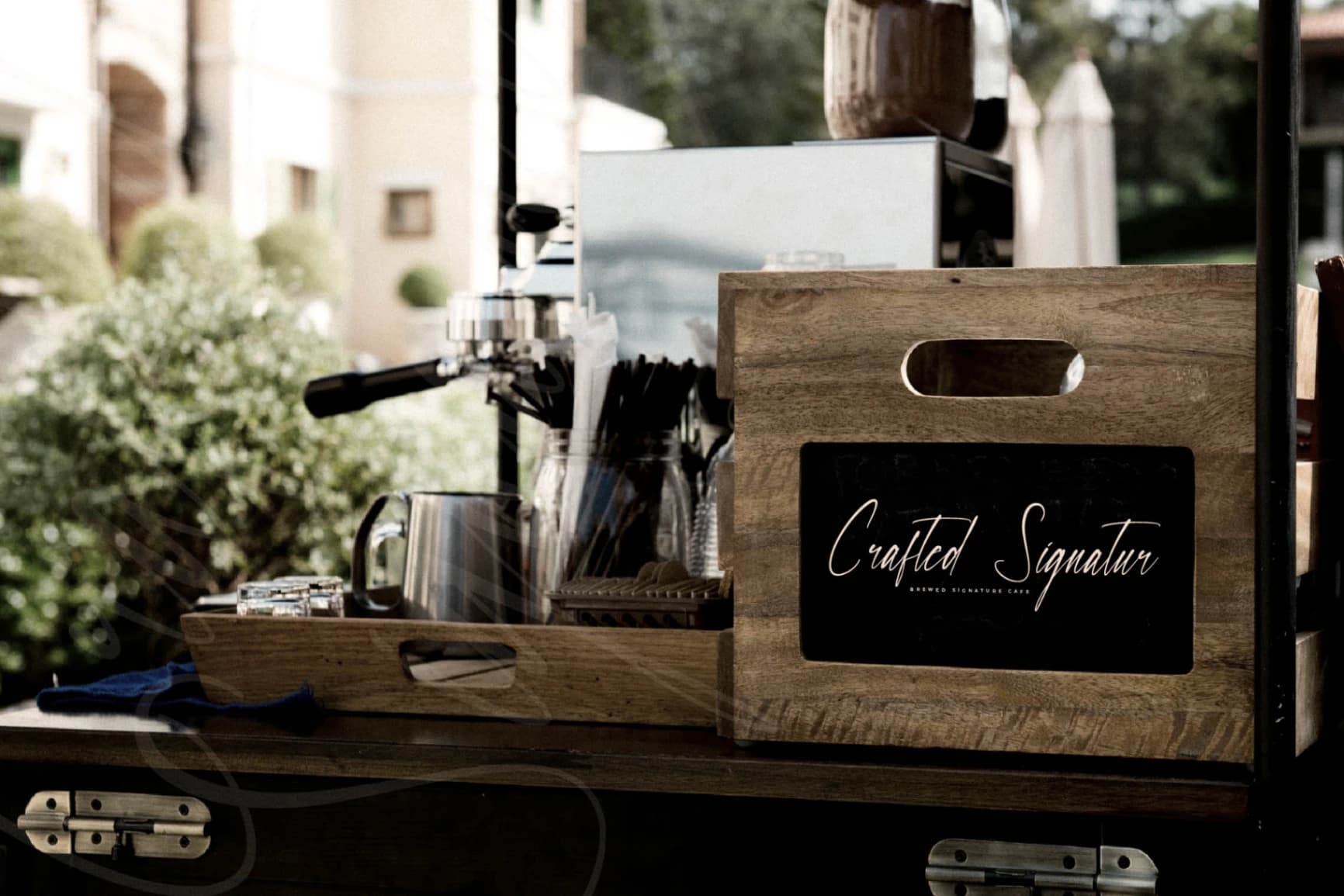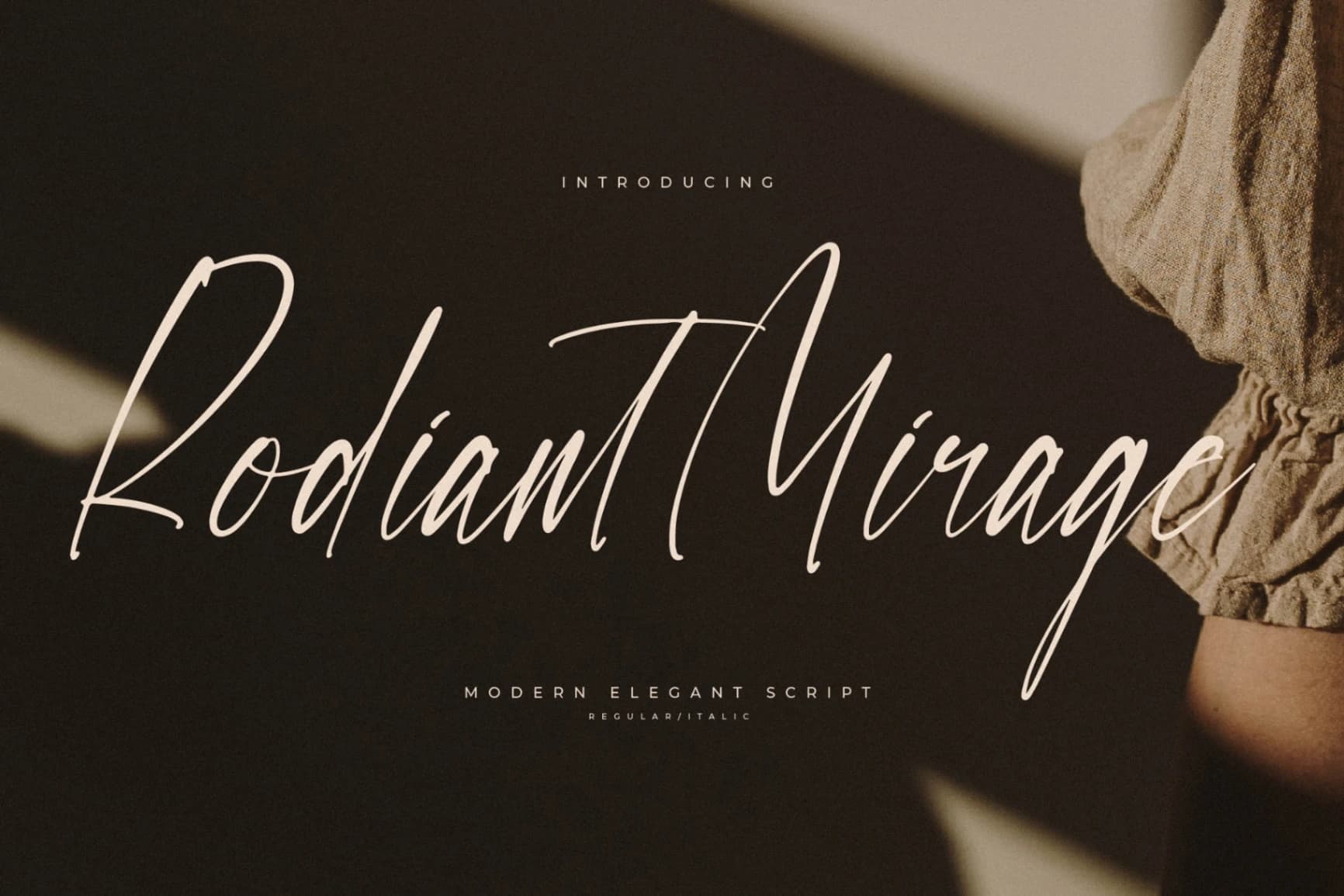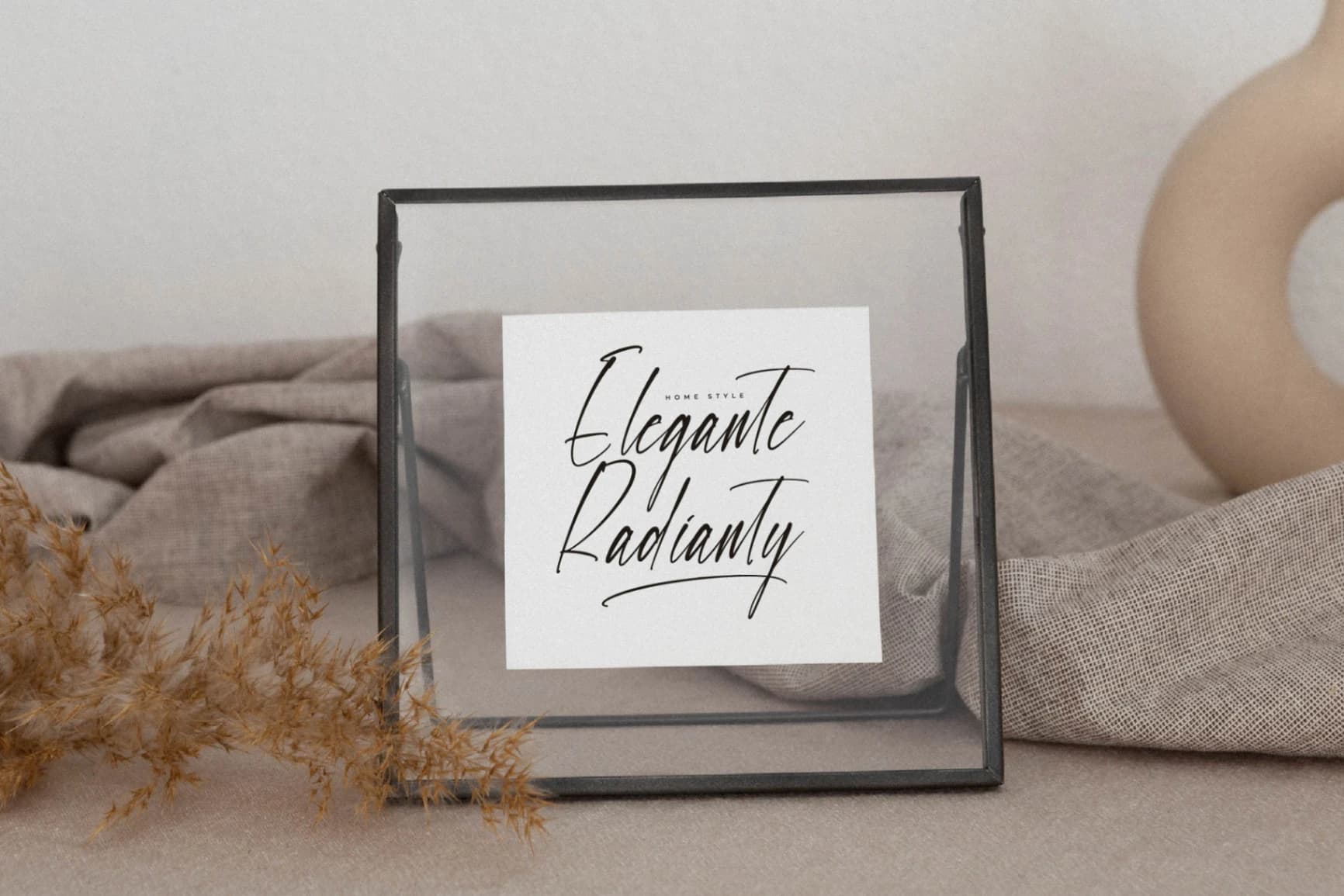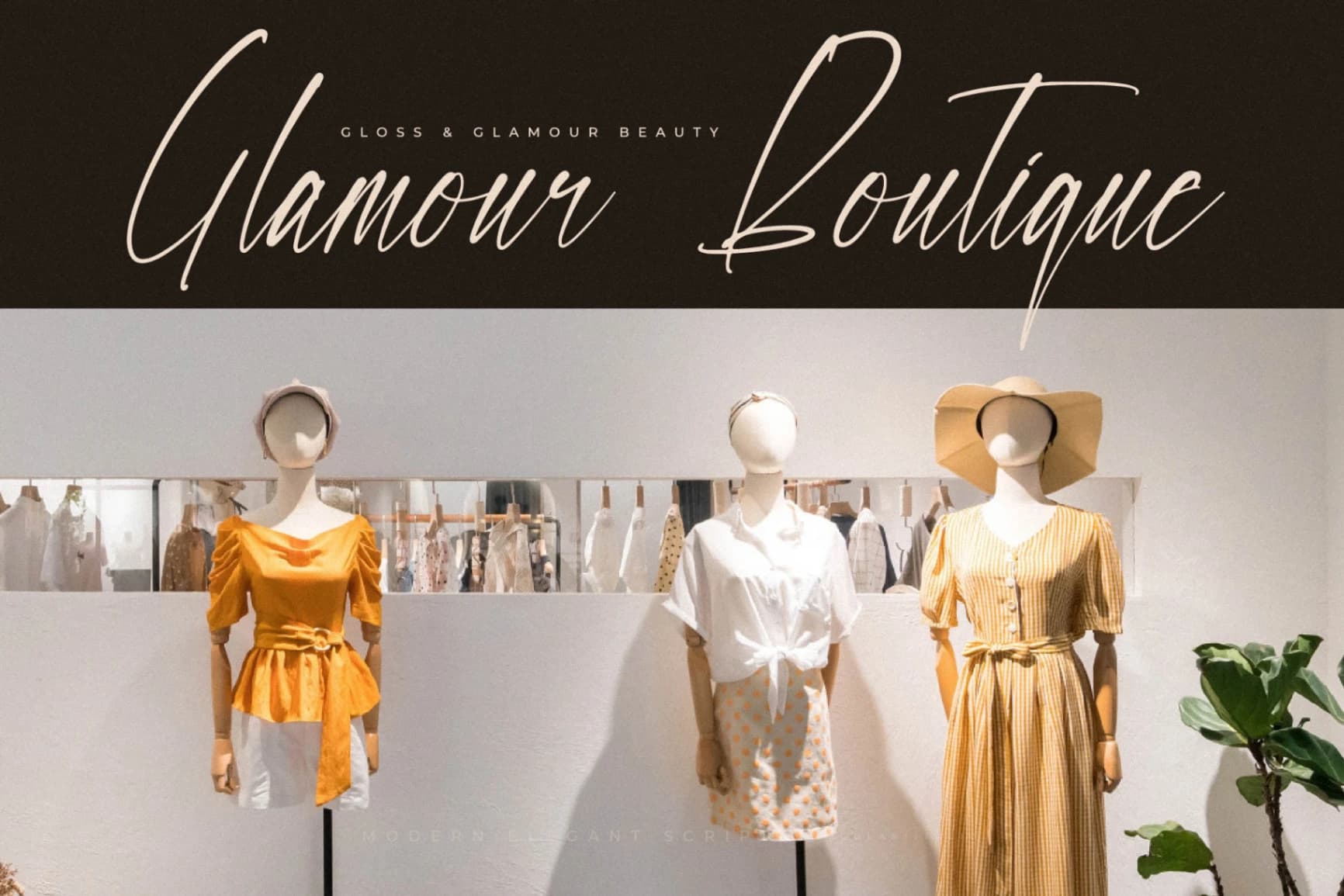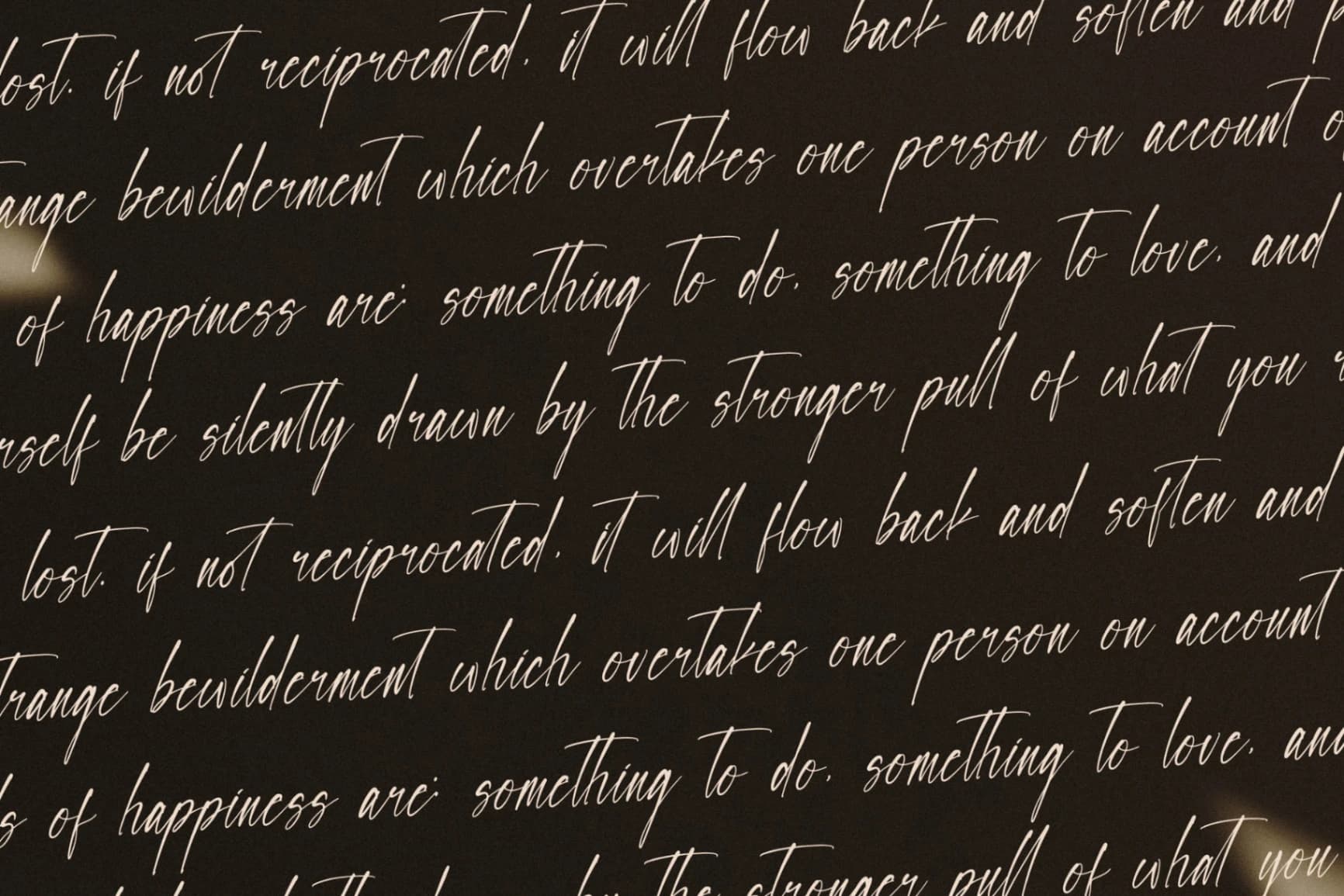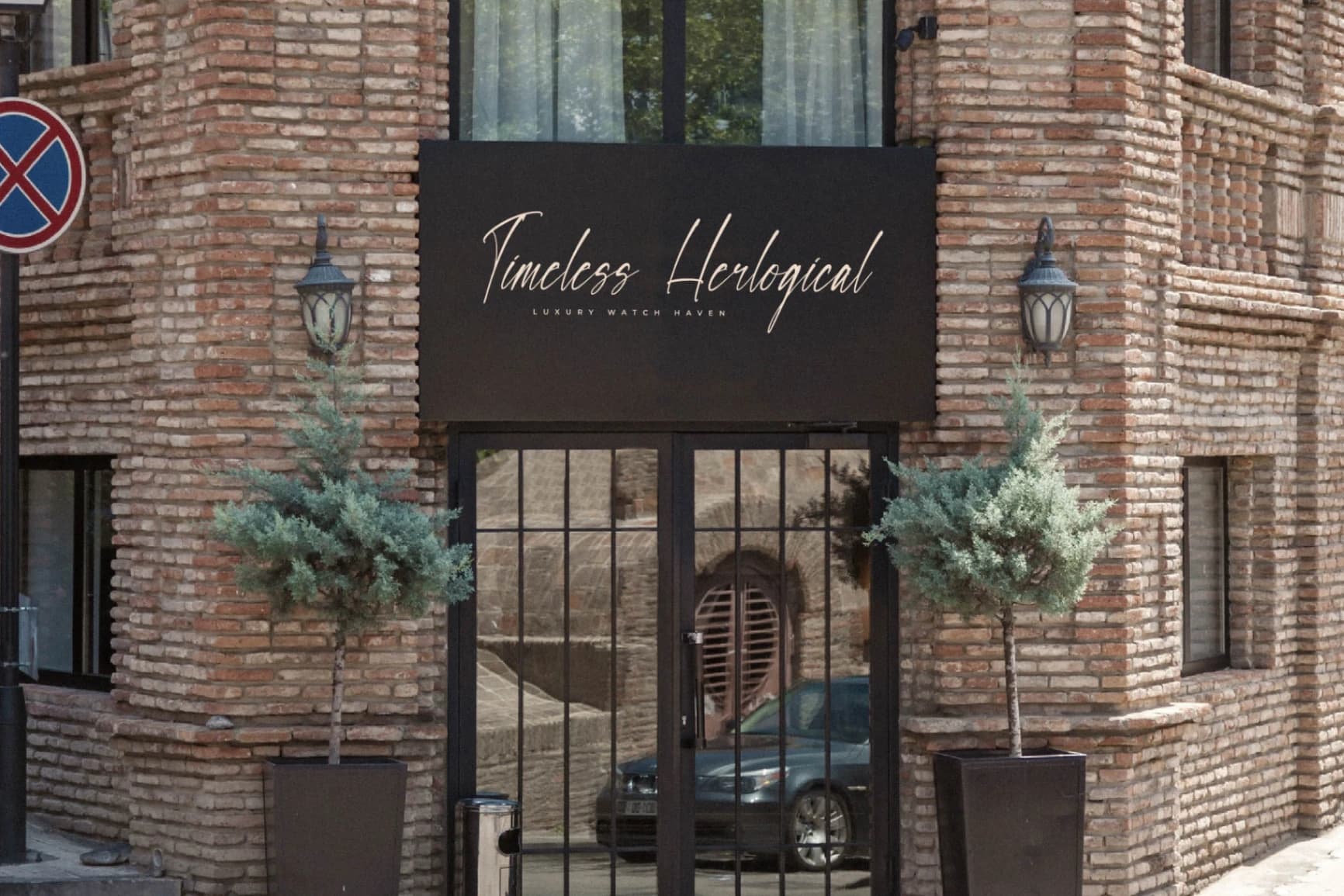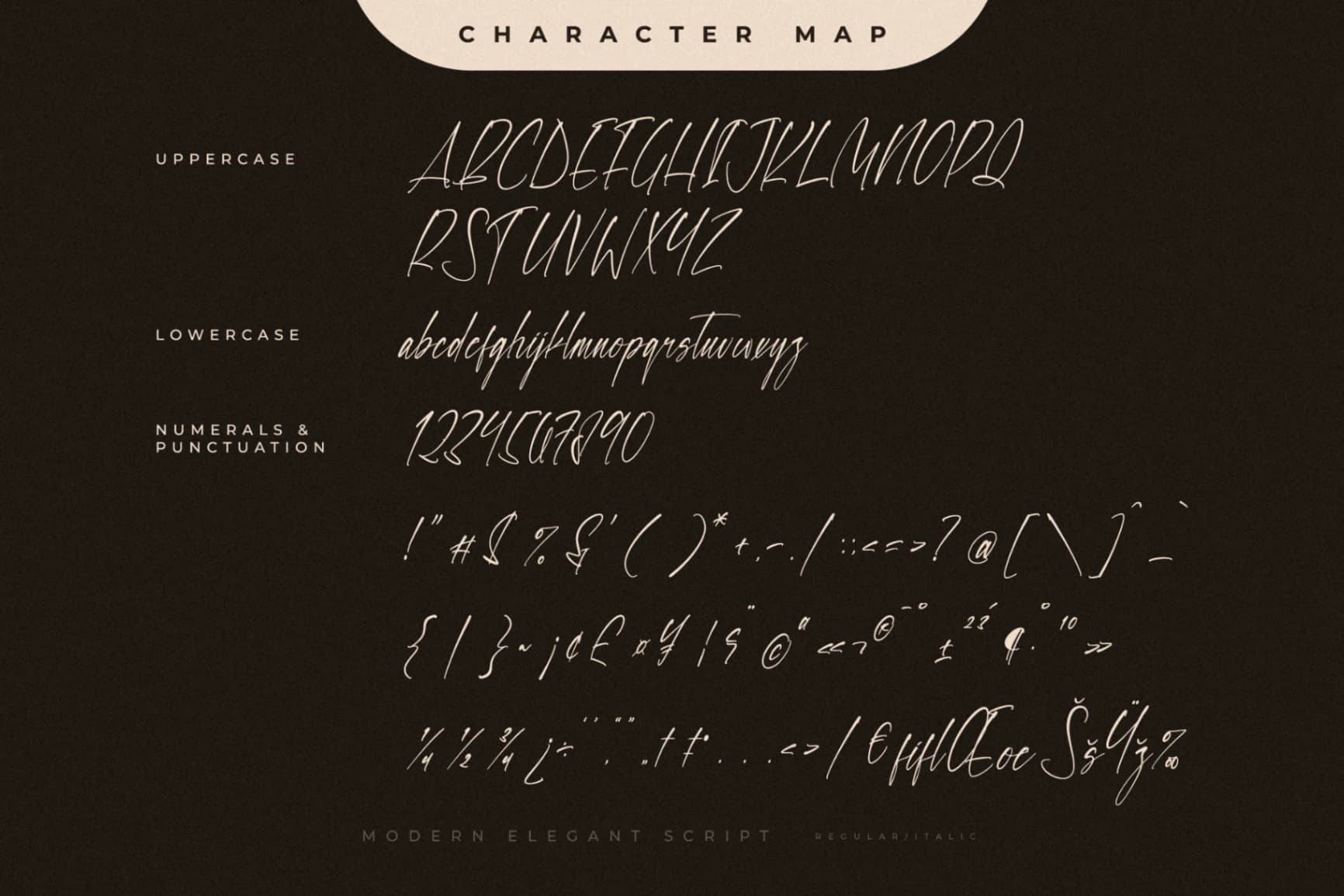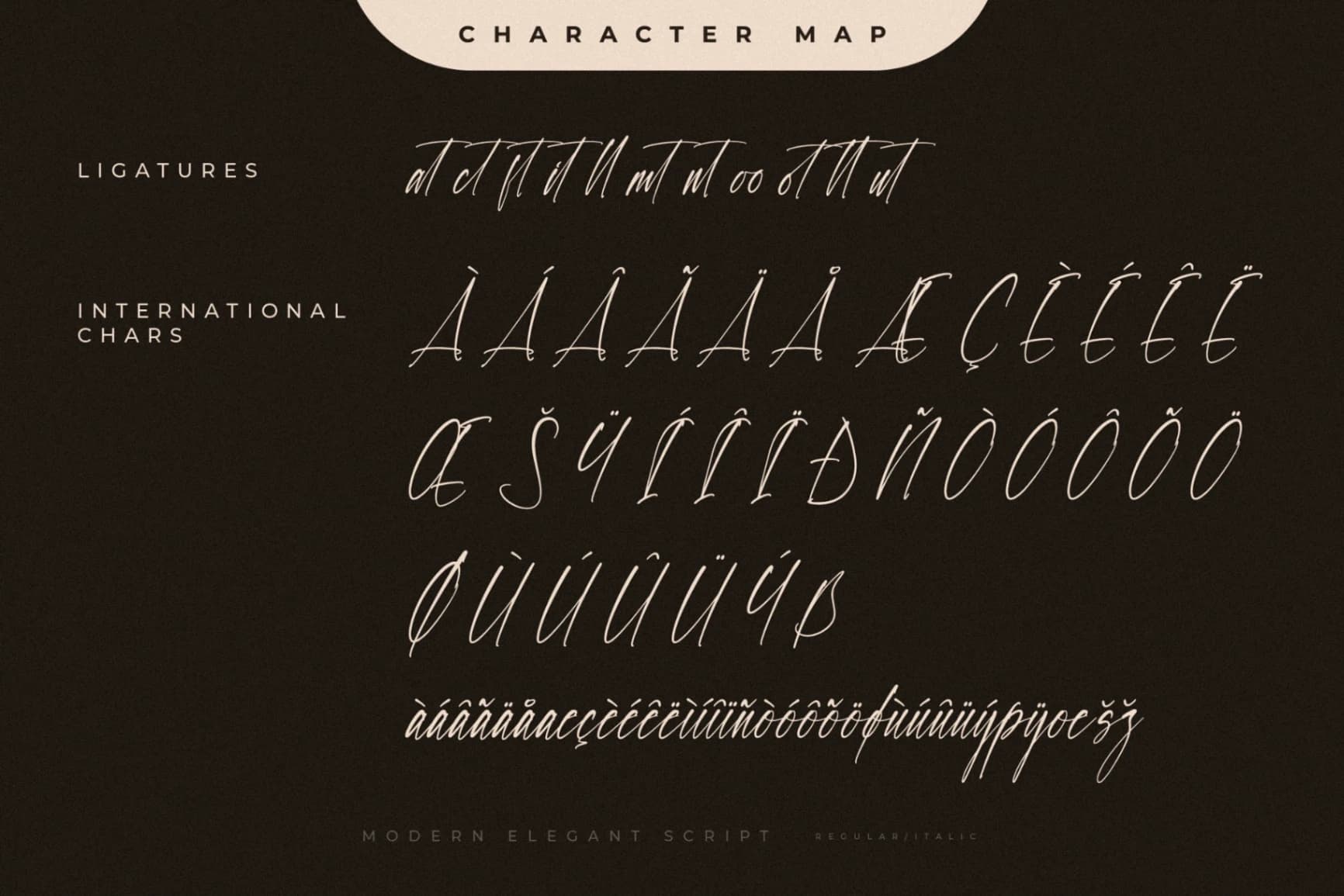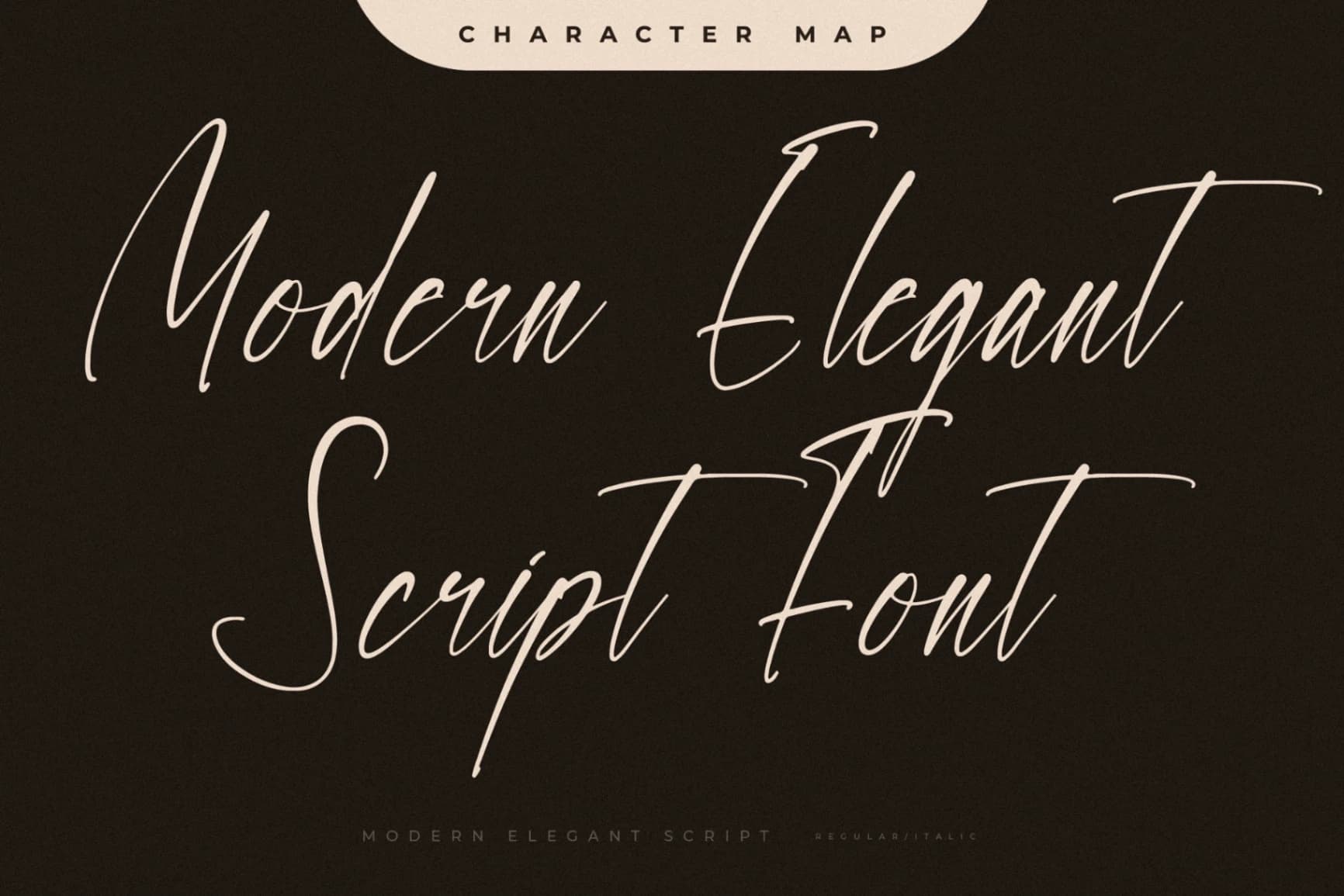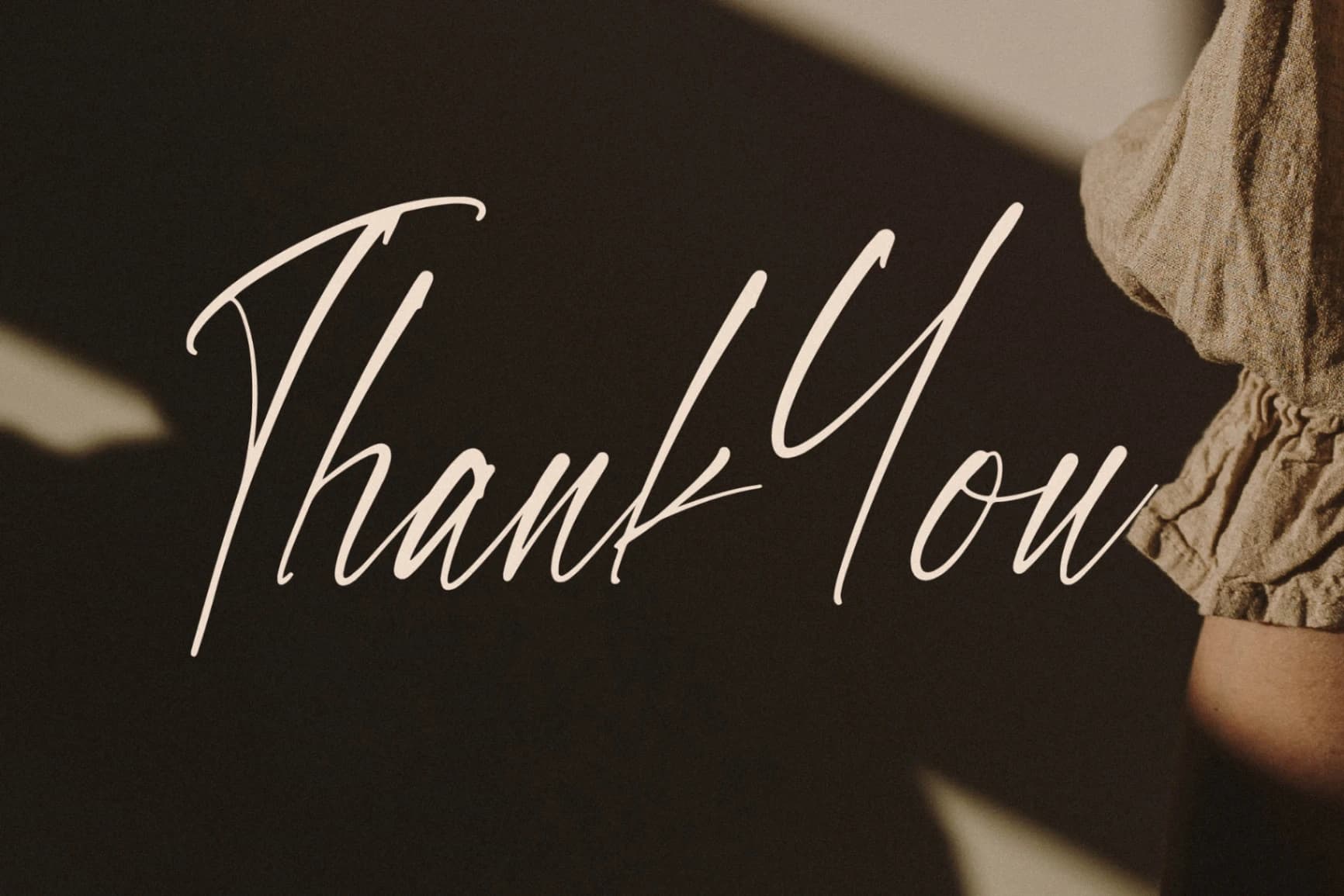
Rodiant Mirage – Modern Elegant Script
Elevate your designs with unmatched sophistication and a touch of organic charm. Introducing Rodiant Mirage – Modern Elegant Script, a truly captivating typeface that blends the timeless beauty of fluid calligraphy with a crisp, contemporary aesthetic. Its distinctive, free-flowing letterforms are meticulously crafted to convey a sense of genuine artistry and understated luxury, making every word a visual delight.
Discover the artistry in every stroke, designed to leave a lasting impression. Rodiant Mirage – Modern Elegant Script features delicate yet expressive brushwork, characterized by its elegant high-contrast lines and naturally sweeping connections. This creates an authentic handwritten feel while maintaining exceptional readability, ensuring your message is not only seen but truly felt and cherished.
Unleash global creative potential with a font built for widespread impact. With its extensive multilingual support, Rodiant Mirage – Modern Elegant Script adapts seamlessly across global markets, making it incredibly versatile for international projects. It is perfect for luxury branding, bespoke wedding invitations, sophisticated fashion editorials, exclusive product packaging, and any design requiring an infusion of personalized elegance.
Transform your vision into a distinctive statement that resonates with refinement. Rodiant Mirage – Modern Elegant Script is the ultimate choice for designers seeking to infuse their work with a unique blend of modern grace and artistic expression. Let this exquisite script be the signature element that defines your next project, delivering an unforgettable aesthetic experience with unparalleled charm.